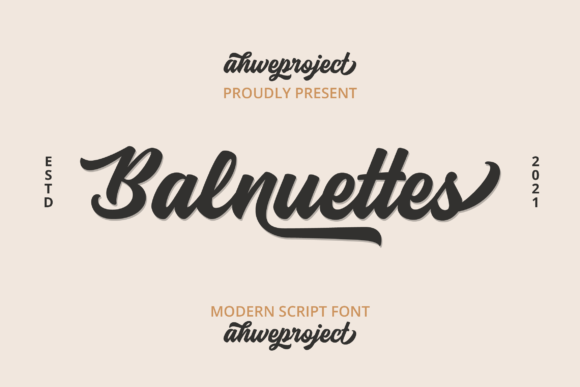
Get ready to immerse yourself in the world of Balnuettes - a script font family that will leave you spellbound with its exquisite charm. Designed by the talented ahweproject, Balnuettes embodies elegance and class like no other. With its flowing lines and delicate curves, this font exudes a timeless beauty that will elevate any design project to new heights.
Balnuettes is meticulously crafted to add a touch of sophistication to your web pages. Its refined appearance and readability make it the perfect choice for creating elegant headers, eye-catching titles, and captivating body text. Whether you're working on a personal blog, an online portfolio, or a corporate website, Balnuettes has the power to transform your words into works of art.
Unlock the full potential of Balnuettes with its PUA encoding, which grants you effortless access to a treasure trove of glyphs and ligatures. Unleash your creativity and explore endless possibilities to add intricate details and embellishments to your designs. From graceful swashes to stylish alternates, Balnuettes provides the tools to make your text shine with individuality.